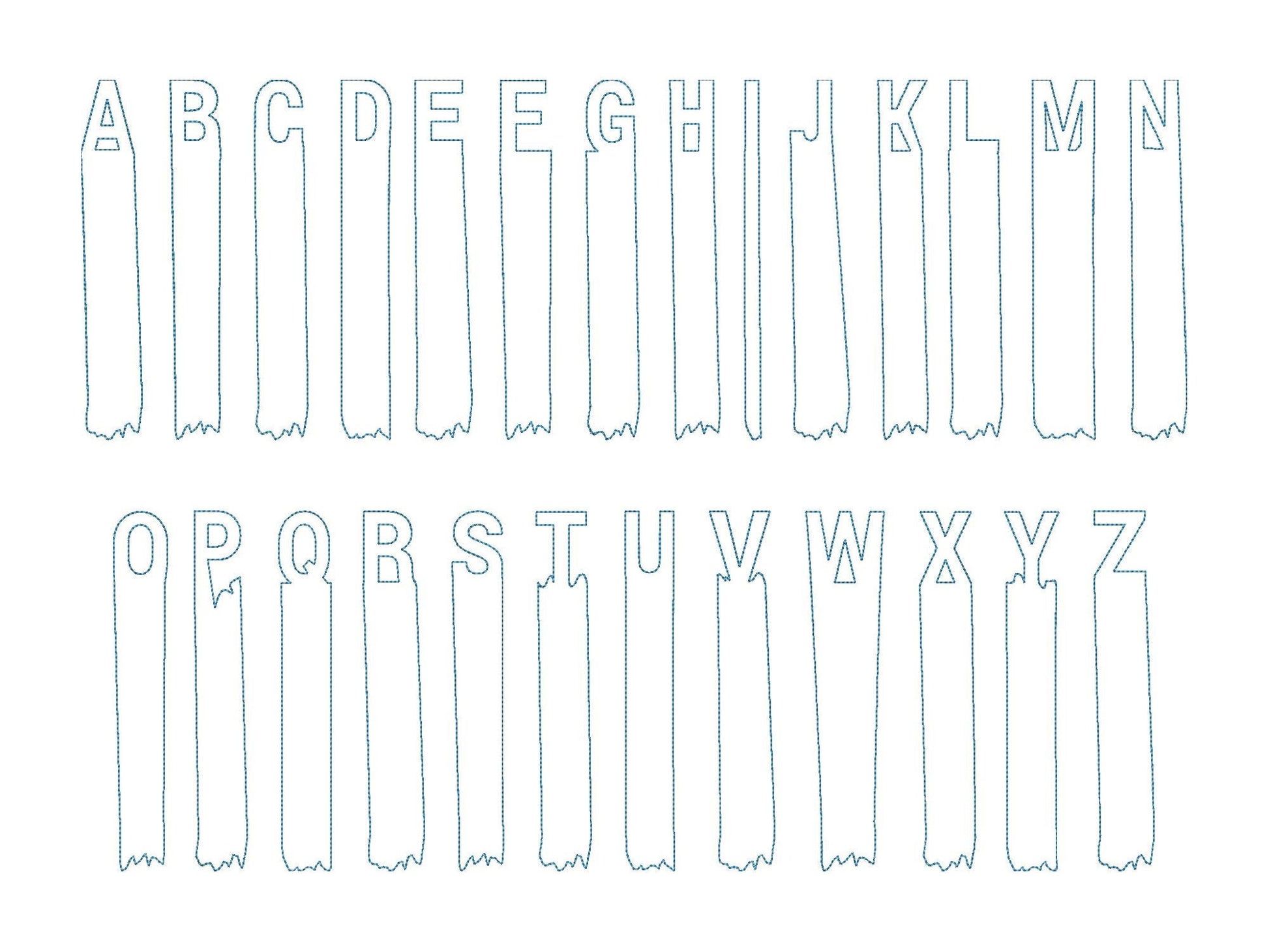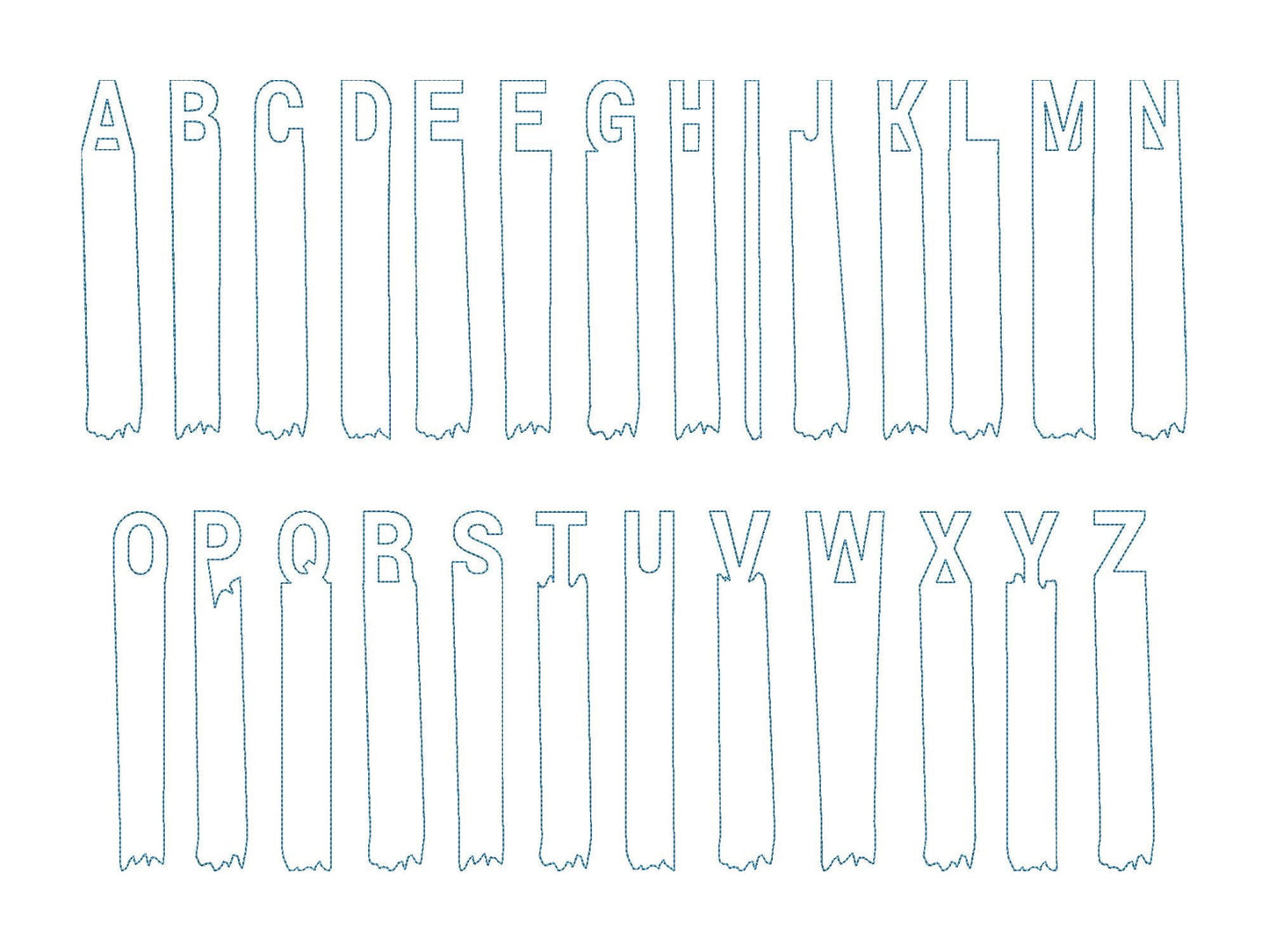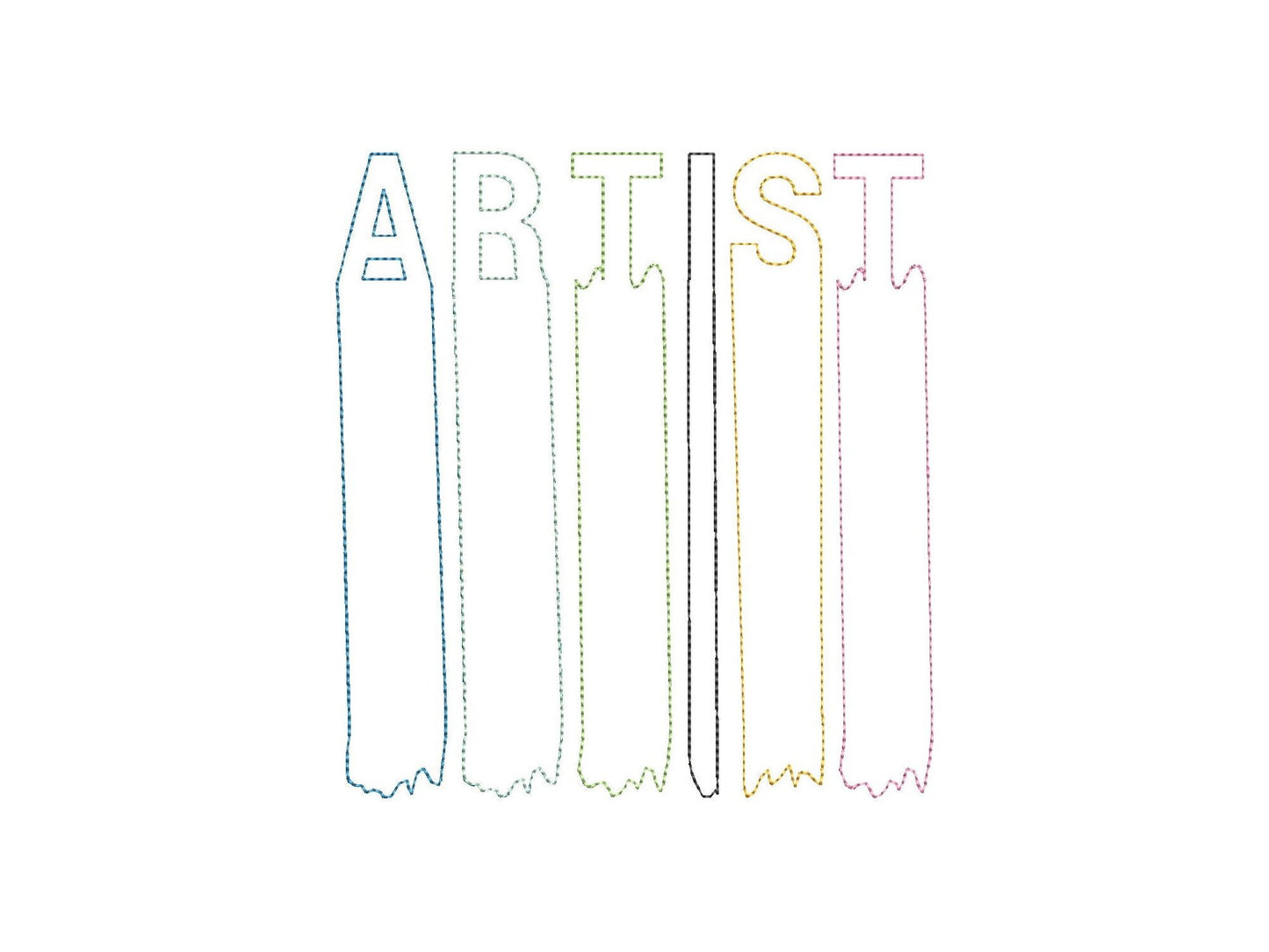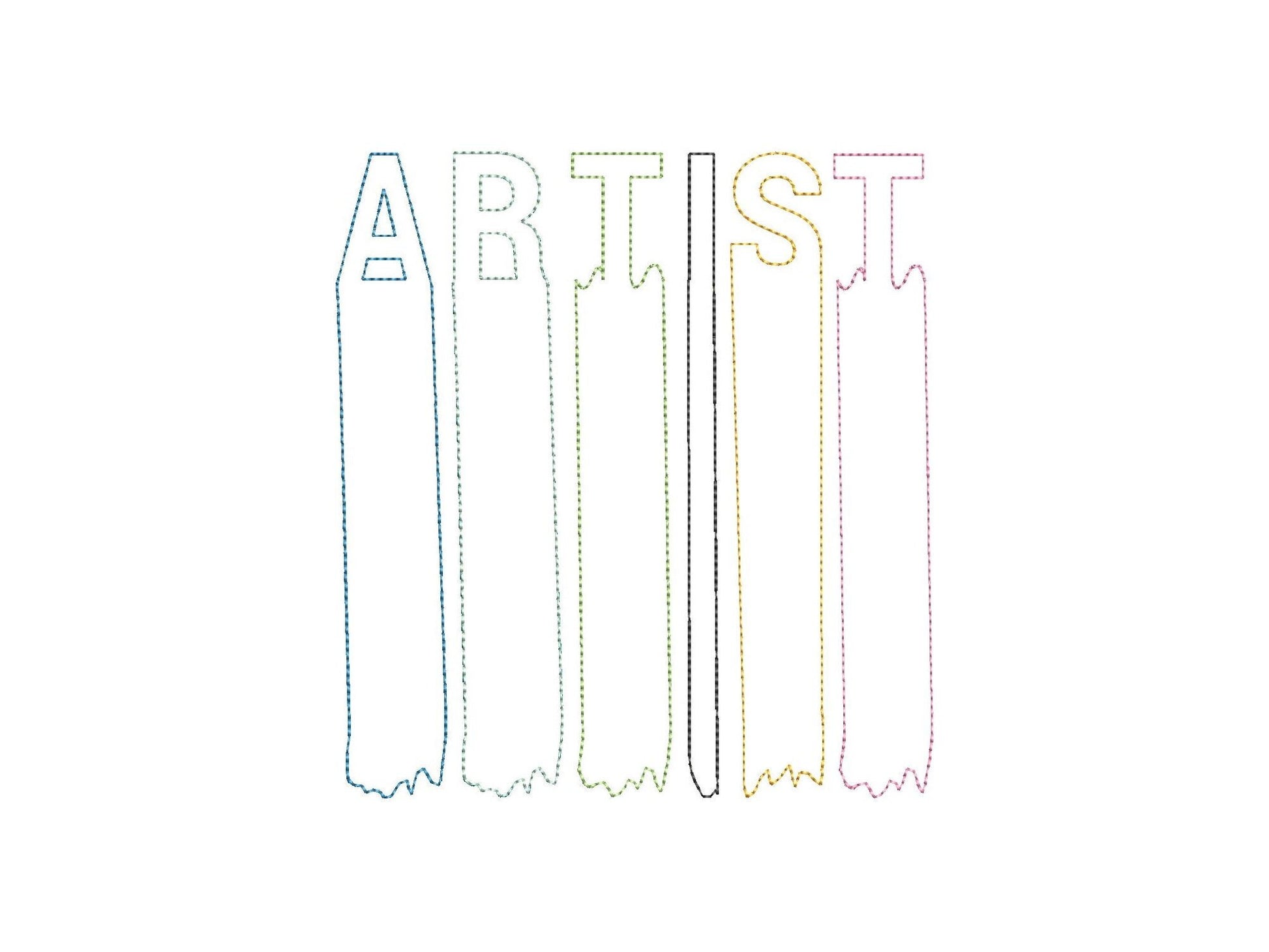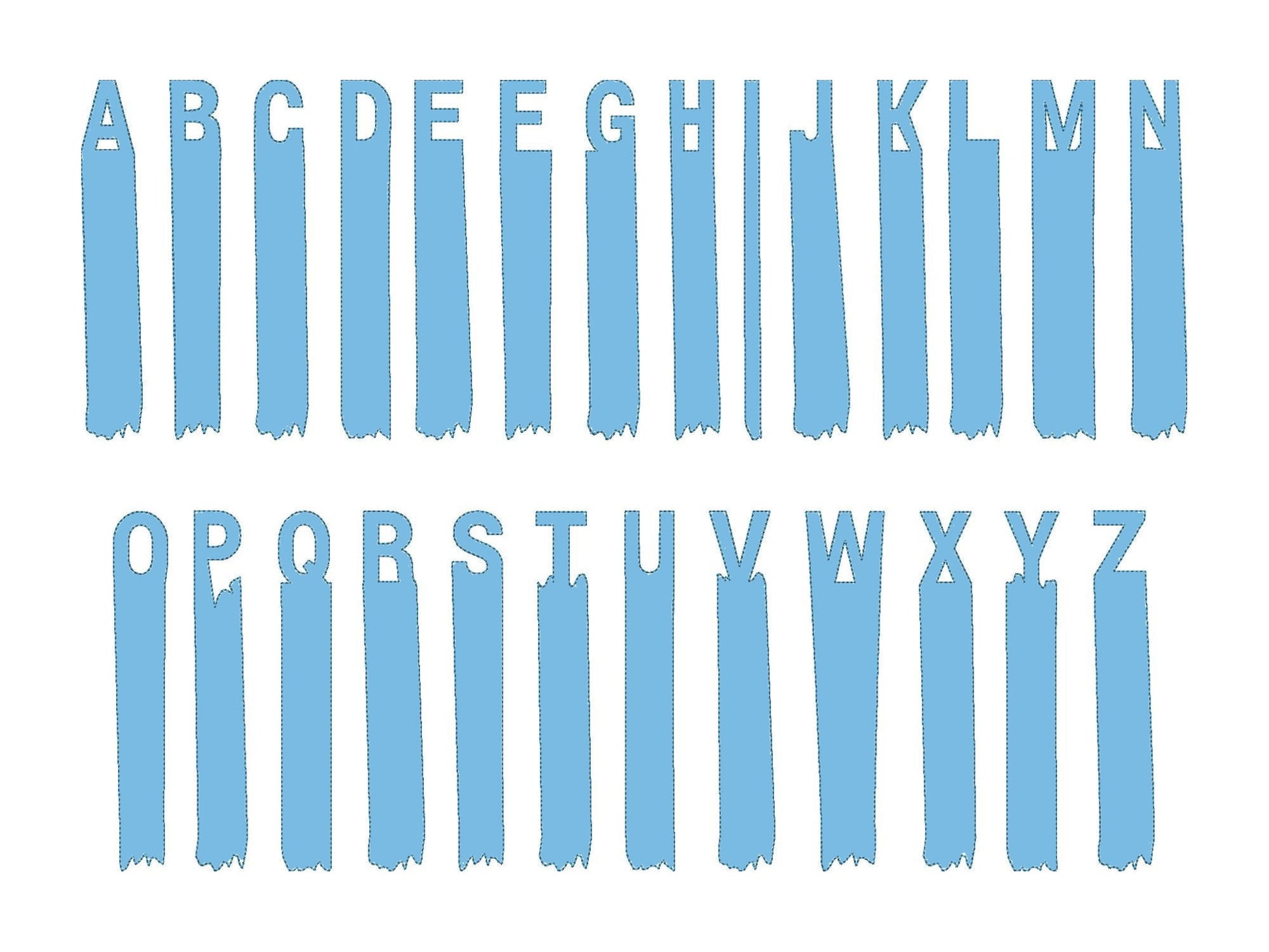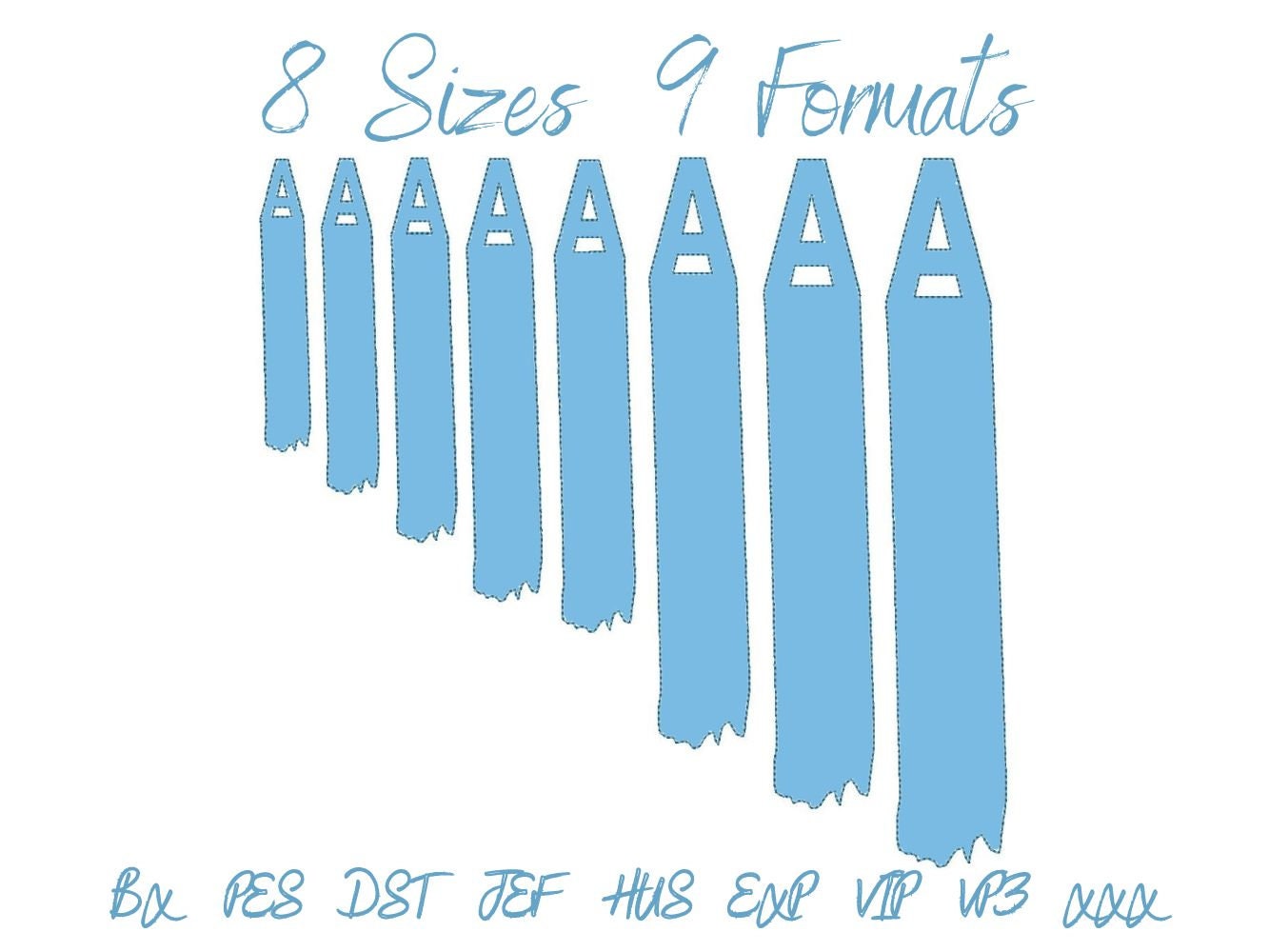
Brush Stroke Painter Font Applique
Raggedy edge applique capital letters A to Z in eight sizes: 4, 4.5, 5, 6, 6.5, 7.5, 8.5 and 9.5 inches.
- Brush stroke raggedy applique font
- Uppercase A-Z
- 8 sizes, 4 to 9.5 in